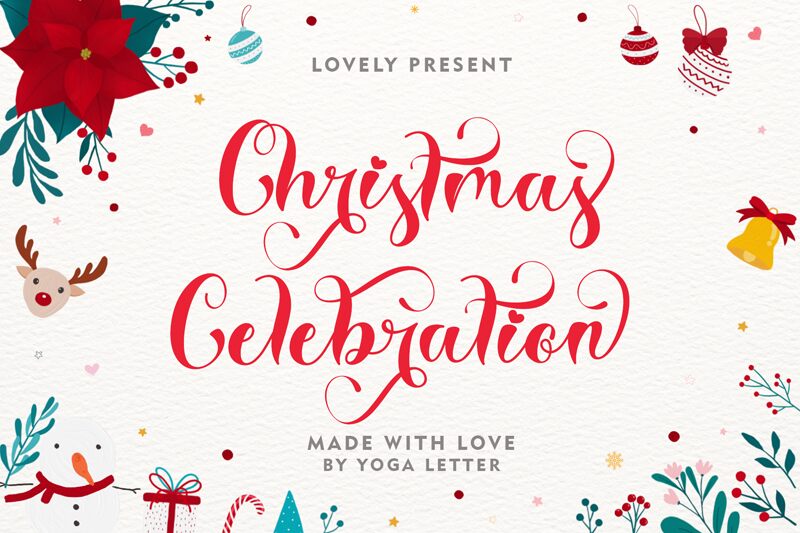
Christmas Celebration, a captivating font designed by Yoga Letter, embodies the very essence of the holiday season. Its elegant, calligraphic strokes evoke the festive spirit, seamlessly blending traditional charm with a modern flair.
The font's graceful curves and sweeping flourishes create a sense of movement and energy, making it an ideal choice for holiday-themed designs, from greeting cards to event invitations.
Whether adorning a cozy winter scene or accentuating the joyous atmosphere of a Christmas celebration, this font's versatility shines through, effortlessly capturing the warmth and enchantment that define the most wonderful time of the year.